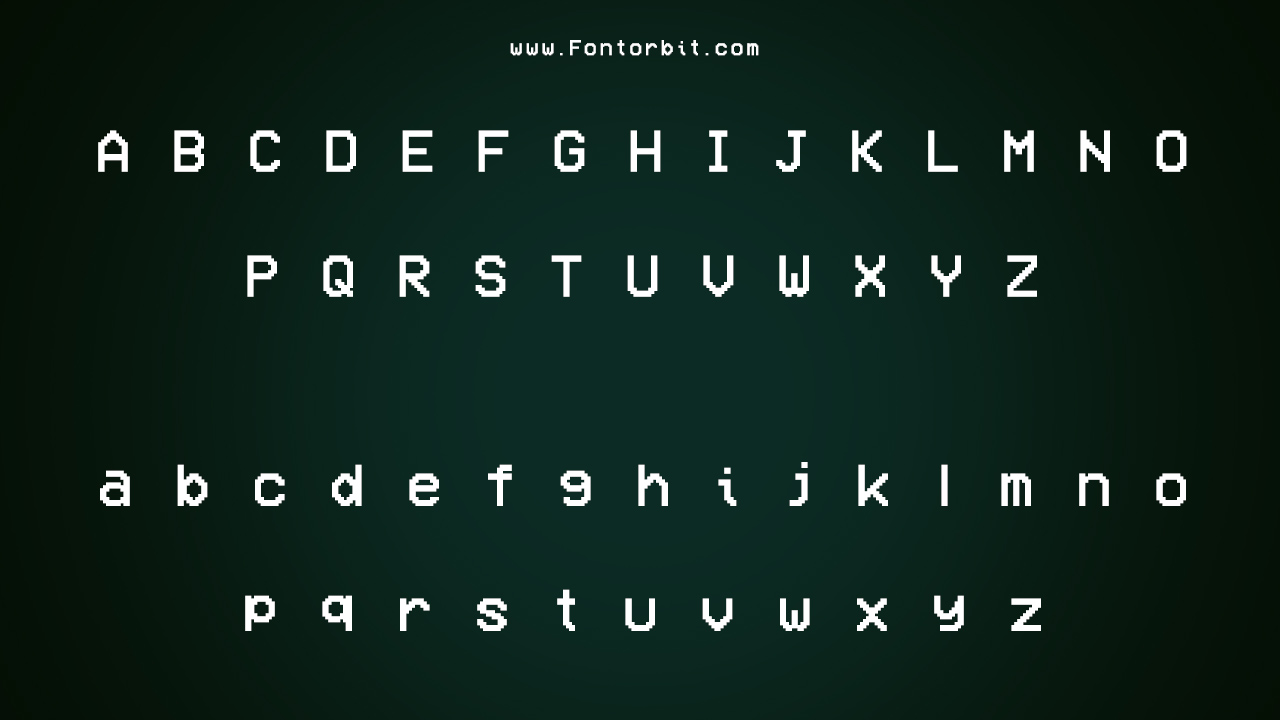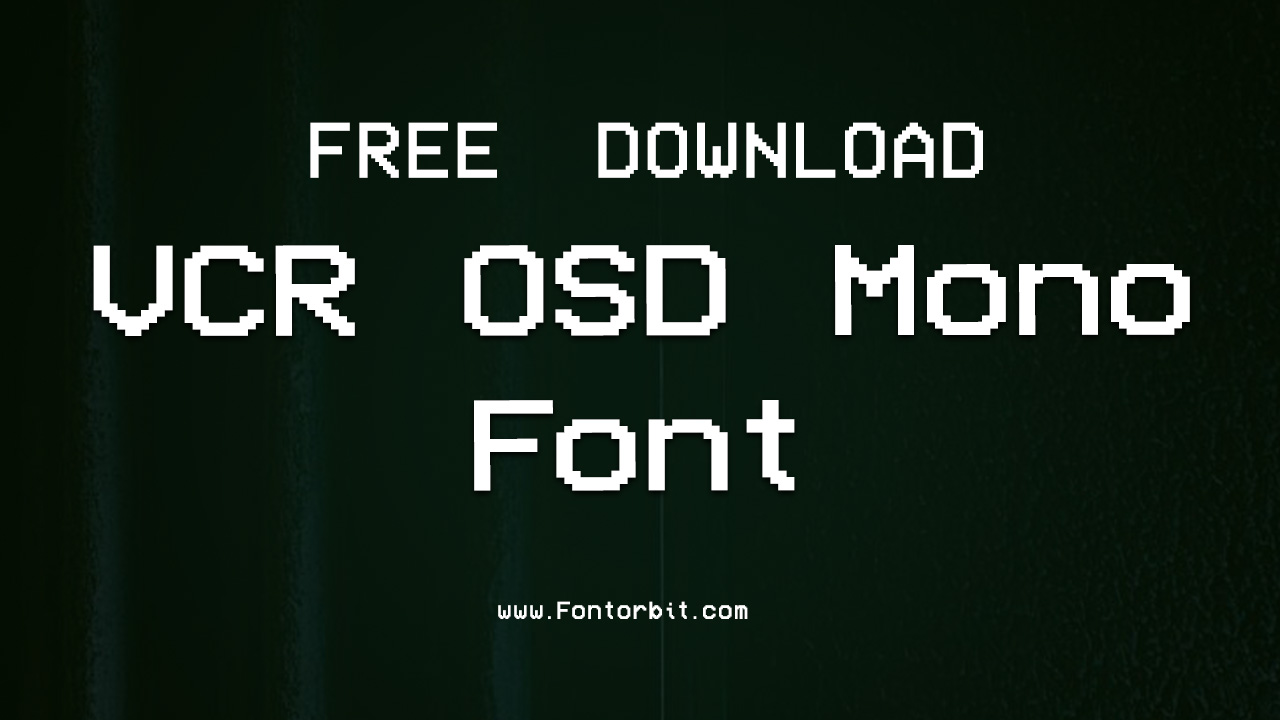
The VCR OSD Mono Font, designed by Riciery Leal, is a pixelated typeface known for its retro digital aesthetic. Released with a focus on capturing the essence of early computer displays, this font is ideal for adding a nostalgic touch to various design projects.
- Retro Themed Designs
- Video Game Graphics
- Technology-Based Projects
- Headings
- Display Text
- Digital Mockups
The VCR OSD Mono Font is perfect for designs that require a vintage, pixelated look. Its distinctive style works well in technology-themed projects, retro video game designs, and eye-catching headings.
The VCR OSD Mono Font offers a unique pixelated design that pays homage to early computer displays. Its versatile and nostalgic style is perfect for retro-themed projects and digital displays. Available for free, it provides a distinctive option for your design needs.
1.What Is The VCR OSD Mono Font?
The VCR OSD Mono Font is a pixelated typeface designed by Riciery Leal, reflecting the retro aesthetic of early computer screens.
2.What Is The Difference Between VCR OSD Mono Font And Other Monospaced Fonts?
VCR OSD Mono has a retro pixelated style, unlike other monospaced fonts, which may have cleaner, more modern designs.
3.What Is The Font Size Range For VCR OSD Mono Font?
Recommended font sizes range from 12 pt to 24 pt, depending on the use case and design requirements.
4.What Are The Recommended Leading And Tracking Values For VCR OSD Mono Font?
Leading: 1.2x font size; Tracking: 0 to 50 units, adjusting for clarity and spacing.
5.How Many Characters Are There In The VCR OSD Mono Typeface?
The VCR OSD Mono typeface includes approximately 94 characters.
6.What Are The Best Practices For Using VCR OSD Mono Font In UI/UX Design?
Use VCR OSD Mono for retro or tech-themed designs, ensuring readability by maintaining sufficient contrast and using larger sizes for clarity.